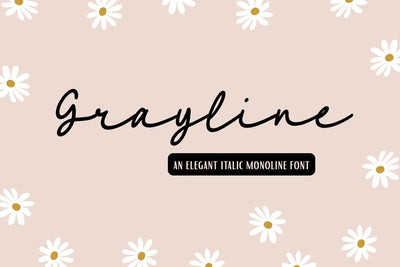
Grayline Italic | Elegant Monoline Font
Ready to give your designs that chic, handcrafted feel? Say hello to Grayline, a versatile and elegant monoline script font that’s perfect for adding a touch of modern sophistication to any project.
This hand-lettered italic font features a smooth, consistent line weight and a graceful slant, making it feel both personal and polished. Whether you're creating a stunning logo, beautiful wedding invitations, or eye-catching social media graphics, Grayline's clean, minimalist style will make your work shine.
With a full set of uppercase and lowercase letters, numbers, and punctuation, Grayline is ready to help you create something truly beautiful.